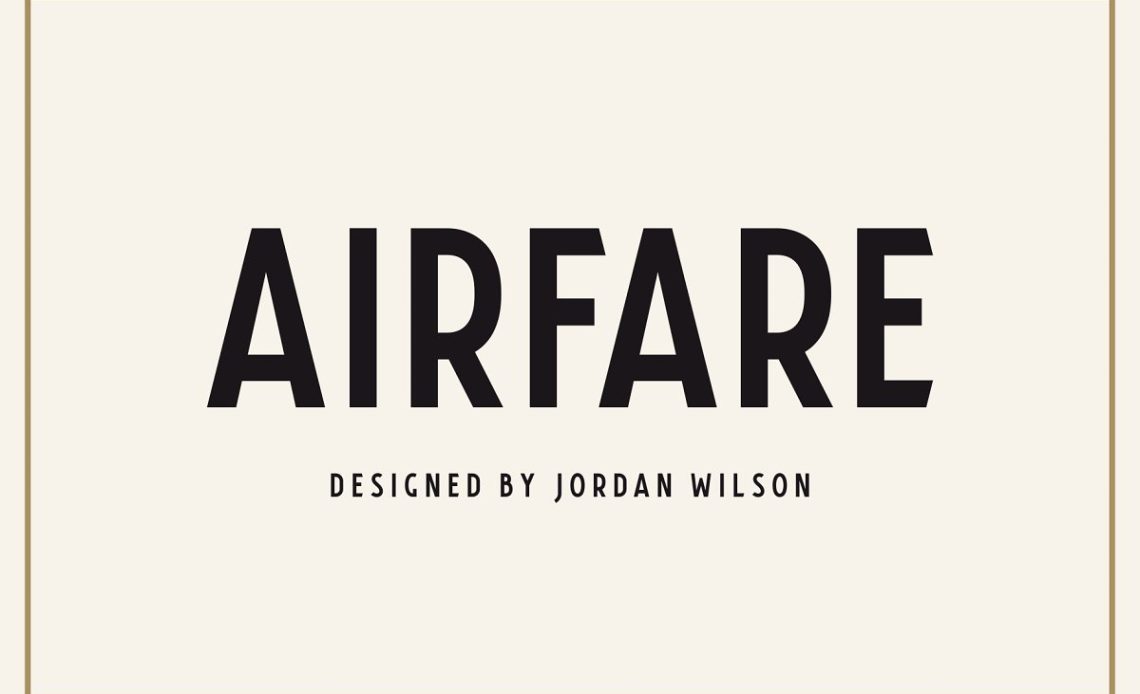
Introducing Airfare Font, the perfect font for tattoo scripts that will elevate your design to the next level! Created by the talented Jordan Wilson, this sans serif font family is bold, vintage, and sharp, making it an ideal choice for a variety of design projects.
With its robust capitals and sleek monoline construction, Airfare exudes a 1950s vibe that is both nostalgic and modern. Whether you're designing a retro-style poster or a contemporary logo, Airfare can adapt to your needs effortlessly.
One of the best things about Airfare Font is its versatility. The font comes in three variations, including regular, italic, and inked, giving you the flexibility to choose the style that best suits your project. The OTF file format ensures that the font is compatible with most design software and easy to install.
If you're looking for a font that can capture attention and leave a lasting impression, Airfare is the perfect choice. Its bold and sharp features make it an ideal option for tattoo scripts, headlines, and logos. It's a font that commands attention and tells a story.
In summary, Airfare Font is a vintage and modern sans serif font family that is perfect for tattoo scripts and a variety of design applications. With its three variations and easy-to-install OTF file format, Airfare is the ideal font to make your designs stand out. Don't wait, download Airfare Font now and let your creativity soar!